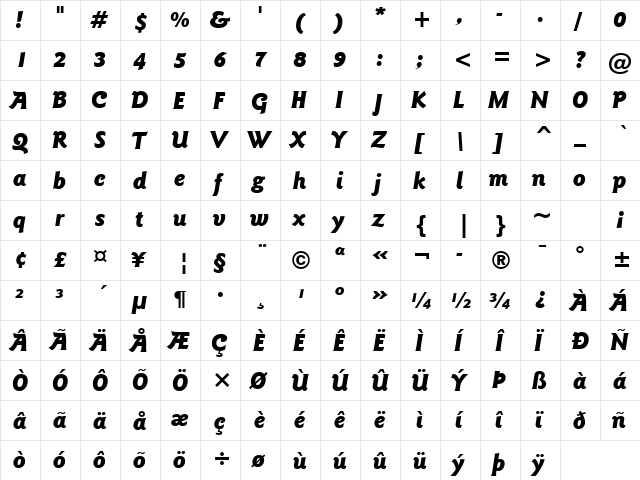
GoudySans BlkIt BT Black Italic Font Preview
GoudySans BlkIt BT Black Italic
Design Context for GoudySans BlkIt BT Typeface
GoudySans BlkIt BT is a composed and adaptable typeface that performs quietly and consistently across a wide range of design contexts. Its italic angle brings a sense of urgency and motion to the letterforms.